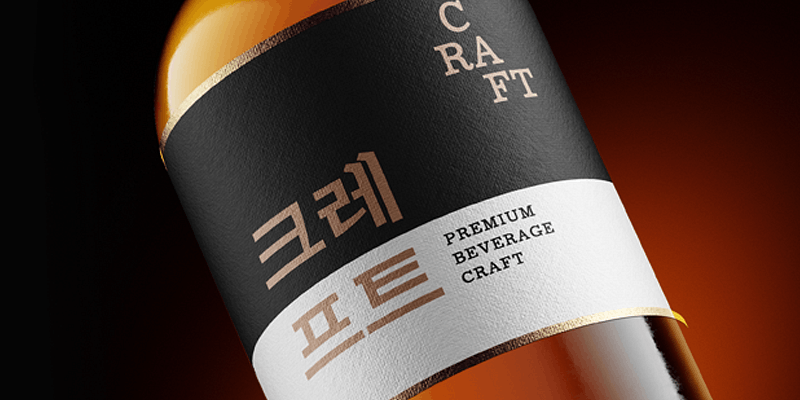
Sandoll Achim the clean-cut impression of Myeongjo with the neatness of Gothic.
Visually, the font gives a refreshing and clean feeling like waking up in the morning, while the blend between Myeongjo and Gothic makes the font elegant yet neat.
Sandoll (산돌) is a leading font foundry in Korea. It has been developing nearly 600 fonts for about 40 years. The foundry has a variety of experiences of multi-language projects such as CJK development and matching Korean and other scripts.